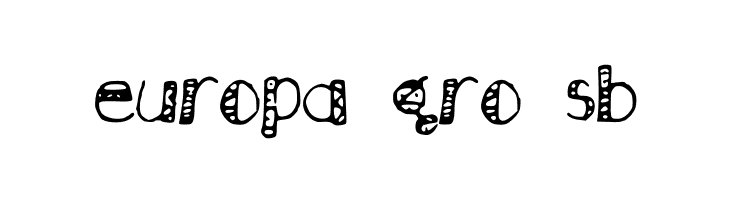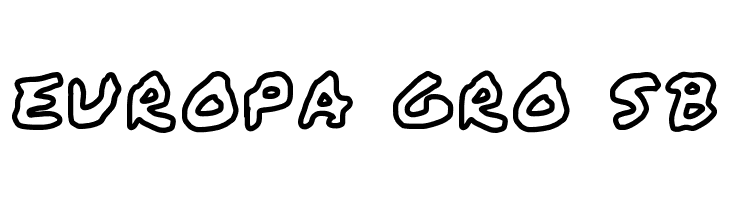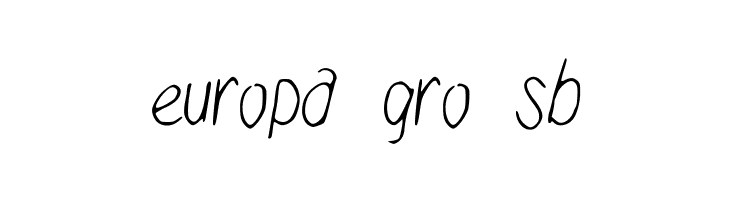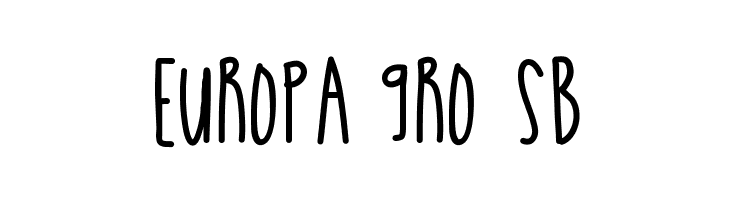
( Fonts by Elliott Hefford )
A geometric, angular font with a futuristic and mechanical style.
A classic serif typeface with medium weight and balanced readability.
A medium-weight, italic serif font with elegant curves and classic style.
A bold, geometric font with angular lines and circular dots, offering a modern and artistic style.
A geometric, angular font with hexagonal shapes and consistent line thickness.
( Copyright (c) 2011, Peter Hull )
A pixelated, monospaced font with a retro digital aesthetic.
A playful, bold handwritten font with thick strokes and rounded edges.
( Fonts by Luedecke Design Font Co. - ldfonts.weebly.com )
A playful, handwritten font with dynamic, cursive-like strokes.
( Julia Guinto )
A playful, casual handwritten font with smooth, flowing strokes.
A bold, angular font with a medieval, fantasy-inspired design.
A bold, playful font with a hand-drawn, casual style.
( Des )
A playful, handwritten font with tall, narrow letters and decorative symbols.
( Fonts by www.koenhachmang.com - Glitch )
A bold, futuristic font with geometric shapes and strong lines.
( Lizzy - washedpurple.com )
A playful, bold handwritten font with a casual and dynamic style.
( Fonts by Vanessa Bays - bythebutterfly.com )
A playful, handwritten font with tall, narrow letters and consistent stroke thickness.
A bold, stencil-style font with a modern industrial look.
( Fonts by Des Gomez )
A playful, handwritten font with bold, rounded characters and charming heart accents.
( Fonts by Manuel Viergutz - Typo Graphic Design - www.typographicdesign.de )
A pixelated, bitmap-style font with a retro digital feel.
( Fonts by Manuel Viergutz - Typo Graphic Design - www.typographicdesign.de )
A pixelated, medium-weight italic font with a retro digital style.
A playful, handwritten font with a whimsical and casual style.
( Fonts by Vanessa Bays - bythebutterfly.com )
A playful, dotted, handwritten-style font with a whimsical flair.
( Fonts by Des Gomez )
A playful, hand-drawn font with a whimsical and informal style.